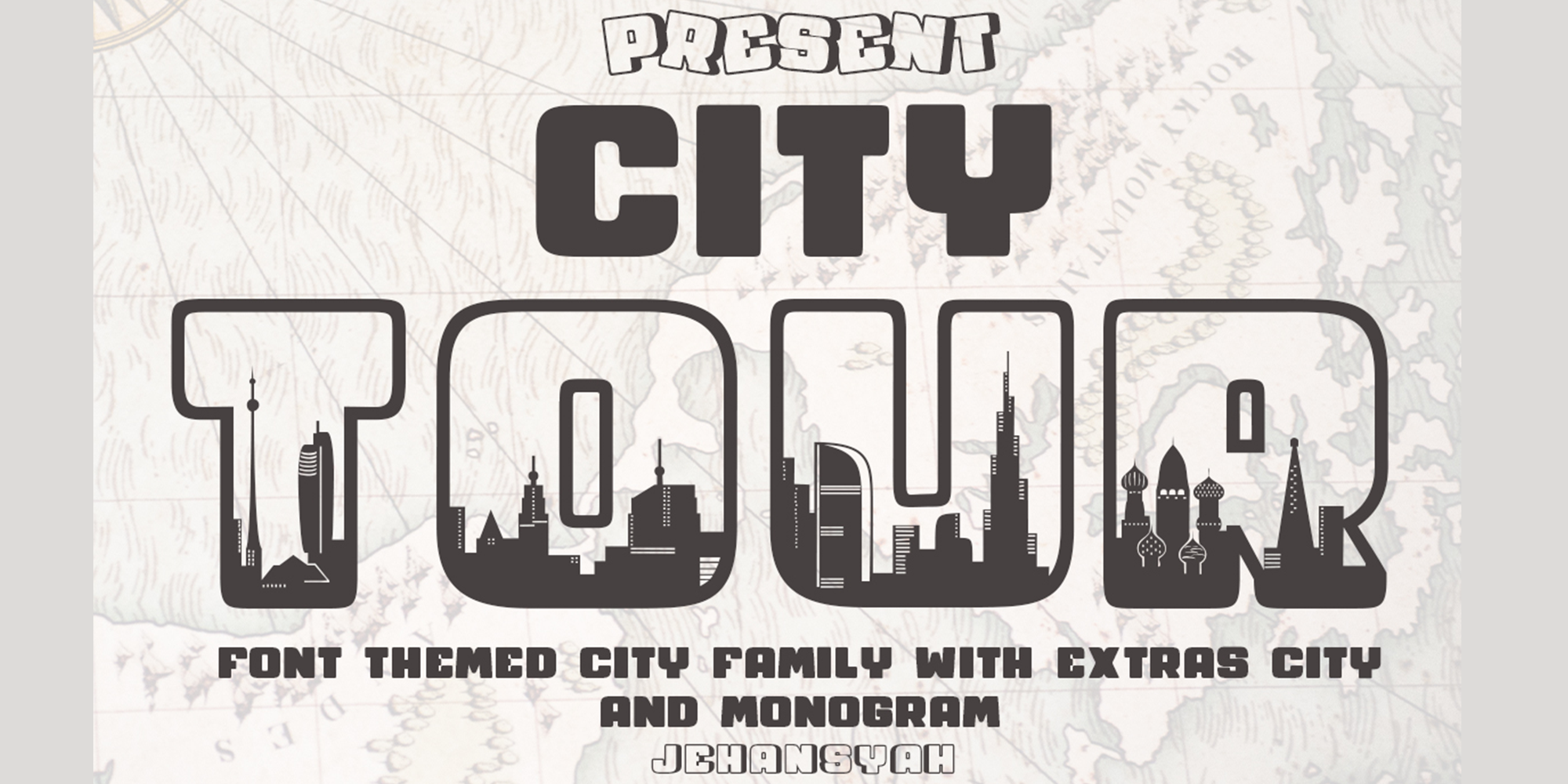
City Tour Font is a dynamic and engaging typeface that beautifully captures the essence of urban exploration, travel, and modern metropolitan vibrancy. Its clean lines and often slightly condensed or energetic forms make it an excellent choice for projects aiming to evoke adventure, discovery, and a contemporary city vibe. Imagine it perfect for travel agency branding, urban exploration blogs, city guide publications, dynamic event posters, modern tourism campaigns, or striking headlines for lifestyle and culture magazines. This font excels in environments where a sense of excitement, approachability, and an unmistakable urban charm are paramount. It’s particularly effective for conveying movement, connection, and a fresh perspective, ensuring your message not only stands out but also resonates with an irresistible energy and wanderlust.
What makes City Tour Font truly exciting is its ability to infuse designs with a sense of adventure and the bustling energy of a city landscape. It often features clear, legible characters with a modern touch, making it highly versatile for both digital and print applications. This font isn't just about displaying text; it's about inviting an experience, telling a story of discovery and the vibrant pulse of urban life. It has a powerful ability to feel both incredibly modern and surprisingly versatile, making it an ideal tool for designers who want their work to convey excitement, clarity, and a truly memorable visual impact. City Tour Font empowers brands and creatives to project an image that is dynamic, inviting, and full of metropolitan spirit.
The City Tour Font family typically offers a range of weights and styles to ensure maximum versatility for diverse design projects. You'll often find it includes a spectrum from light to regular, medium, and bold, sometimes extending to ultra-bold or black weights, providing robust options for typographic hierarchy and emphasis. Corresponding italic styles may also be available, allowing for dynamic variations in text presentation. This extensive family ensures that City Tour Font Free Download can adapt seamlessly to any design challenge, from captivating headlines that inspire travel to clear, engaging body text, all while maintaining a consistent and harmonious visual language. Its broad character set usually covers a wide range of Latin characters, numbers, and extensive punctuation, making it suitable for international projects and complex textual layouts.